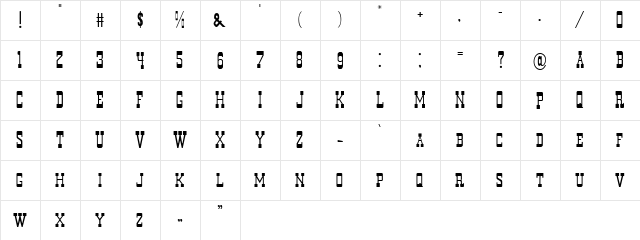
Decree Thin Regular
| Foundry | Ivan Zeifert works |
| Designer | Ivan D Zeifert |
Design Context for Decree Thin Typeface
Decree Thin takes a measured approach to typography — its balanced proportions and neutral character make it a reliable workhorse for both digital and print work. Its slender proportions lend an understated elegance to any composition.